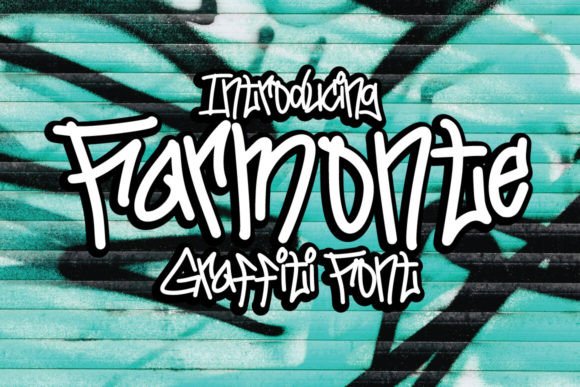
Introducing Farmonte Font: Elevate Your Designs with Graffiti Flair
Are you a designer or crafter looking to add a touch of edginess to your projects? Look no further than Farmonte Font, a display font inspired by the vibrant world of street art calligraphy and graffiti tags. This versatile font is perfect for a wide range of applications, from movie titles and logos to posters, games, and book covers.
What is Farmonte Font?
Farmonte Font is a carefully crafted display font that captures the essence of street art and graffiti. Its unique design makes it an ideal choice for projects that require a bold, eye-catching look. With its roots in urban art, Farmonte Font brings a fresh and modern aesthetic to the world of typography.
Key Features of Farmonte Font
- Extensive Glyph Library: Farmonte Font boasts an impressive collection of 130+ glyphs, offering a wide range of options for designers.
Farmonte Font’s versatility makes it suitable for a wide range of applications, including:
- Movies and Documentaries: Add a touch of grit and urban flair to your film titles and documentaries.
- Logos and Branding: Create bold, eye-catching logos that stand out from the crowd.
- Posters and Flyers: Make your promotional materials pop with Farmonte Font’s vibrant, graffiti-inspired style.
- Games and Animations: Add a touch of edginess to your game titles, animations, and cartoons.
- Book Covers and Headlines: Use Farmonte Font to create bold, attention-grabbing headlines and titles for your book covers and publications.
Why Choose Farmonte Font?
With Farmonte Font, you can:
- Stand Out from the Crowd: Farmonte Font’s unique design ensures that your projects will stand out from the competition.
- Save Time and Effort: With its extensive glyph library and Open Type features, Farmonte Font saves you time and effort in creating custom designs.
Tips for Using Farmonte Font
To get the most out of Farmonte Font, try the following:
- Experiment with Different Sizes and Colors: Farmonte Font looks great in a variety of sizes and colors, so don’t be afraid to experiment and find the perfect combination for your project.
- Mix and Match Glyphs: With over 130 glyphs to choose from, try mixing and matching different characters to create a unique look.
- Use Open Type Features: Take advantage of Farmonte Font’s Open Type features to add an extra layer of creativity to your designs.
Farmonte Font is a versatile and creative display font that’s perfect for designers and crafters looking to add a touch of graffiti flair to their projects. With its extensive glyph library, Open Type features, and PUA unicode, Farmonte Font offers endless possibilities for creative expression. So why wait? Add Farmonte Font to your design toolkit today and watch your projects come to life!